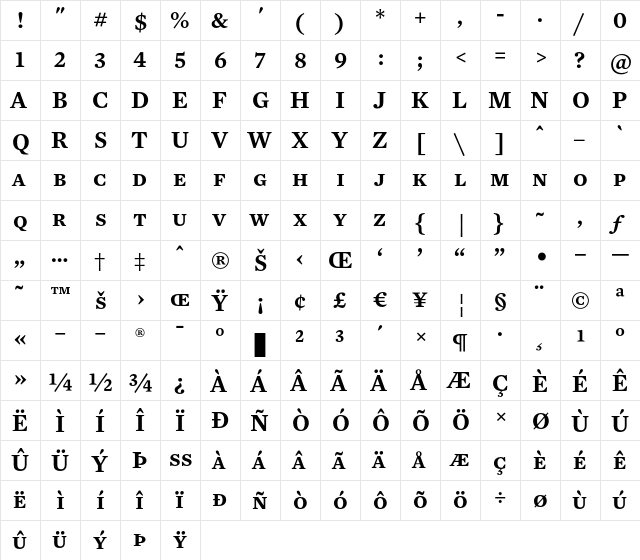
Mercury Text G2 Semibold SC
Design Context for Mercury Text G2 Typeface
Mercury Text G2 takes a measured approach to typography — its balanced proportions and neutral character make it a reliable workhorse for both digital and print work. Its bold stroke weight gives it real presence on the page.